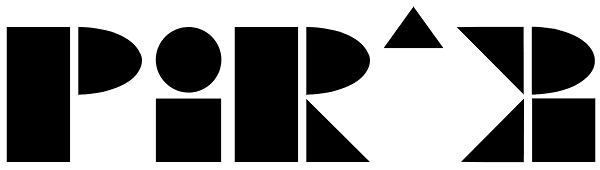
PI R^2
Why is this font is called Pi R^2 (Pi R Squared) ? It is the formula used to calculate the area of a circle. I am fascinated with Mathematics, and I wanted to try and generate a font that only used the most basic of geometric shapes the Circle and...